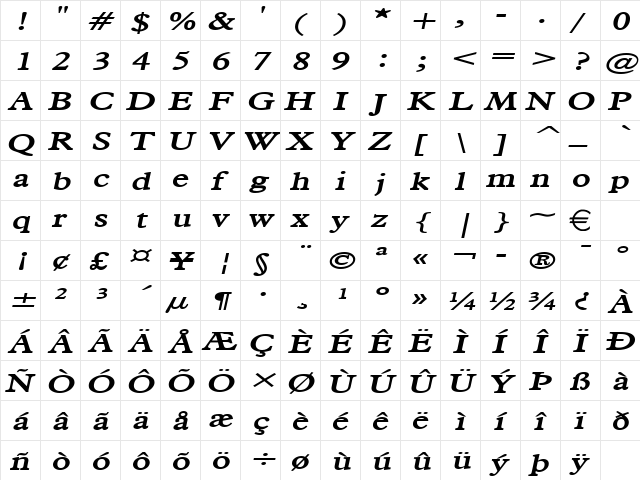
Nadine BoldItalic Font Preview
Design Context for Nadine Typeface
Nadine offers clean, dependable letterforms without strong stylistic allegiance, making it a practical choice for designers who need flexibility. The dynamic lean of this cut emphasises speed and emphasis in any layout. The heavy weight commands attention and anchors typographic hierarchies.